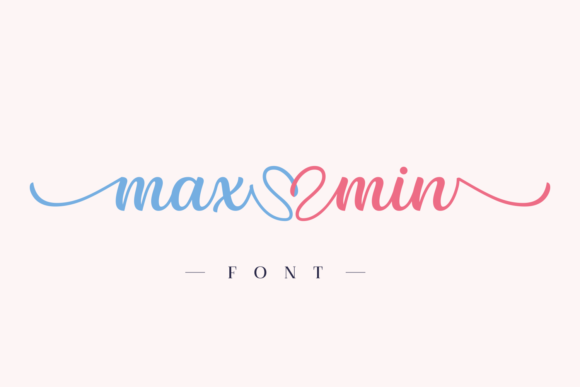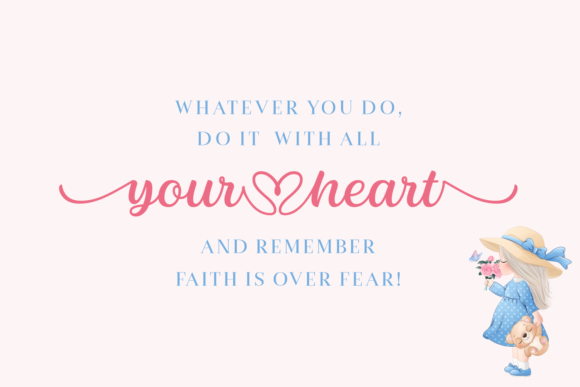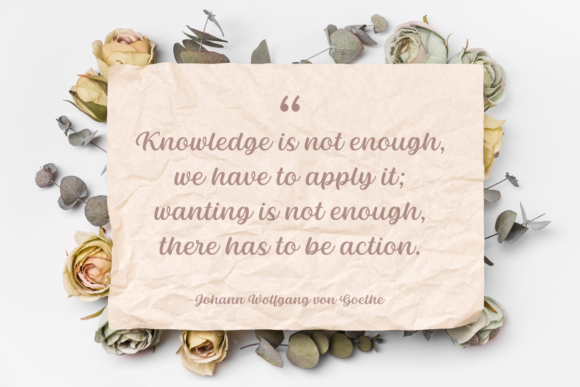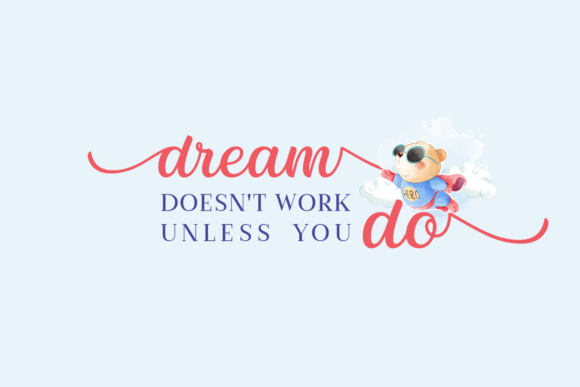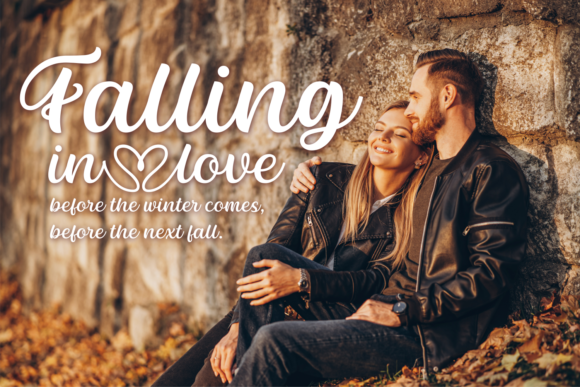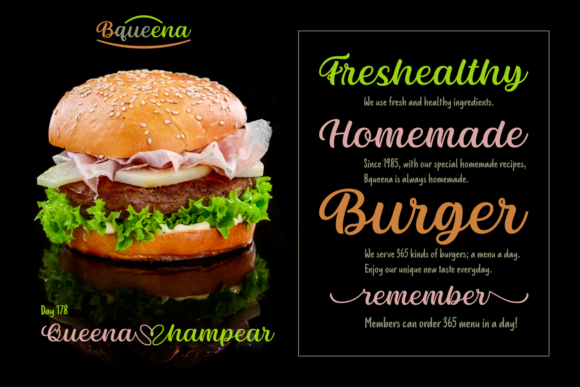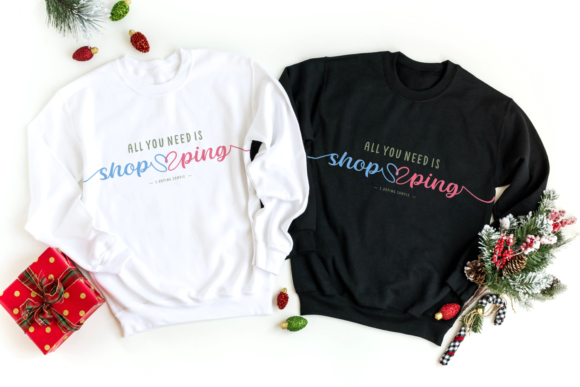
Max Min Font
About Max Min Font
Max Min is a delicate and elegant handwritten font. Its distinct and well rounded letters make this font a masterpiece. Fall in love with its incredibly versatile style and use it to create spectacular designs!This font is PUA encoded which means you can access all of the glyphs and swashes with ease!